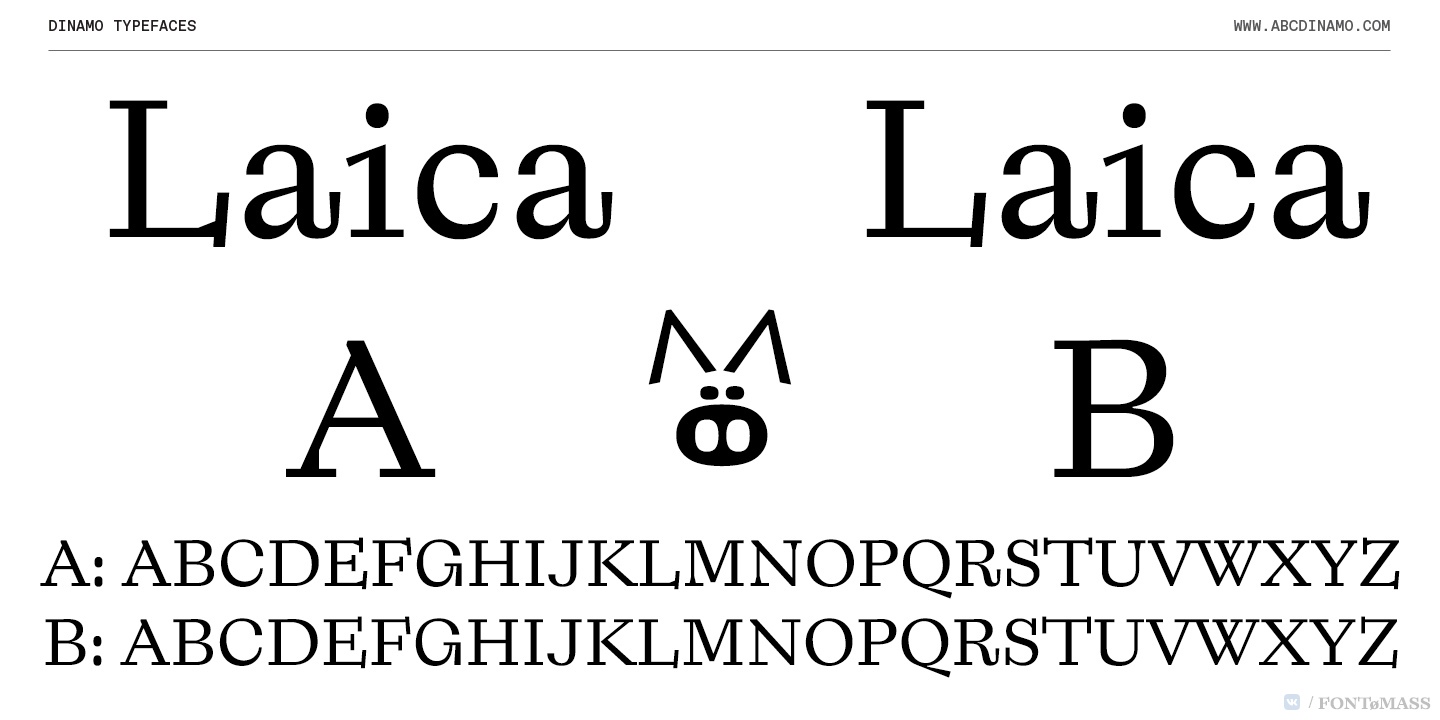
Laica A & Laica B Font
Laica A & Laica B Font is perfect for sophisticated editorial design, luxury fashion magazines, premium brand identity systems, high-end photography portfolios, minimalist architectural presentations, and contemporary art gallery materials. Its dual nature makes it ideal for avant-garde publications, cutting-edge tech companies, modern museums, boutique agencies, and any project requiring innovative typographic solutions with artistic flair.
This font is exciting because it offers two complementary yet distinct personalities within a single cohesive system, allowing designers unprecedented creative flexibility while maintaining visual consistency. The innovative dual approach provides endless possibilities for creating dynamic hierarchies, engaging contrasts, and sophisticated typographic conversations that elevate design projects beyond conventional single-font limitations.
The Laica A & Laica B Font family typically includes multiple weights for both variants, ranging from Light to Bold, with corresponding italics and alternative character sets. This comprehensive dual-system approach enables designers to create complex yet harmonious typographic compositions that showcase versatility while maintaining brand coherence across diverse applications and creative challenges.